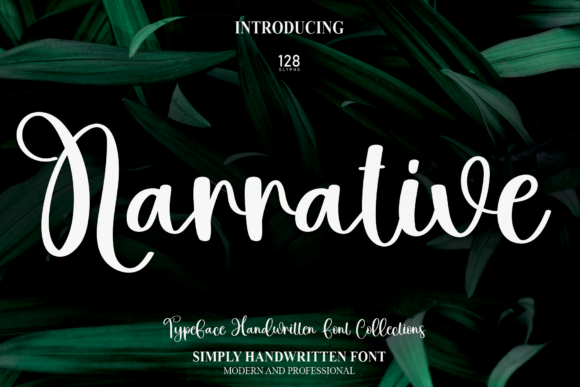
Introduction to Narrative Font
Narrative is a classy and stylish script font.
It is perfect for any branding project such as logos, t-shirt printing, creative products, and more It will look extraordinary in a variety of contexts.
Key Features of Narrative Font
Why Choose Narrative Font?
Narrative Font offers exceptional quality and versatility, making it a valuable addition to your design toolkit. Whether you’re creating for personal projects or commercial use, Narrative Font delivers professional results.